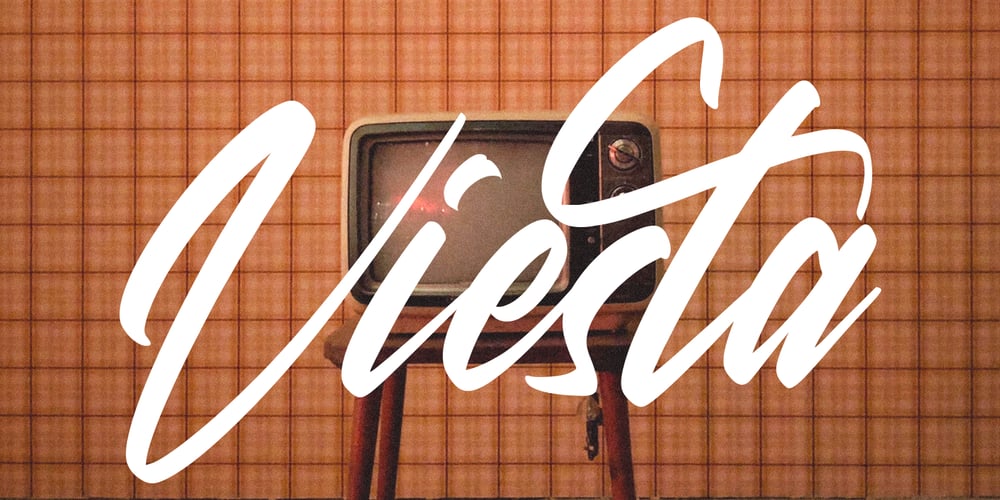
Viesta Font Family was designed by Gilang Maulana and published by Maulana Creative. Viesta contains 1 styles and family package options. Give your designs an authentic handcrafted feel. Viesta is a brush script that is perfectly suited for signatures, stationery, logo, typography quotes, magazine or book covers, website headers, clothing, branding, packaging design and more.This font includes:- Ligatures- Multi-lingual Support